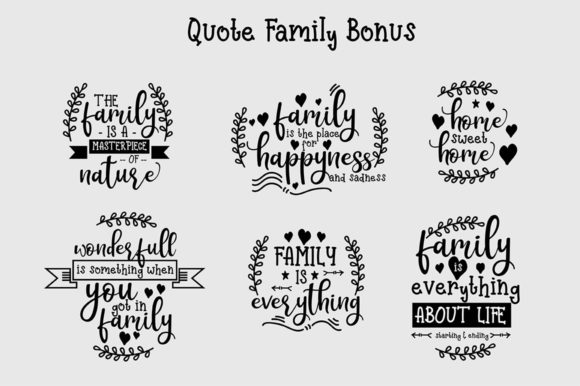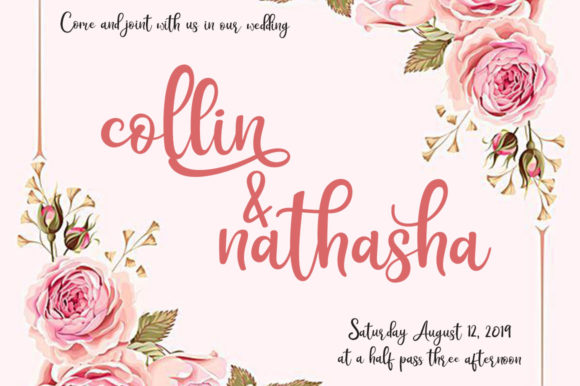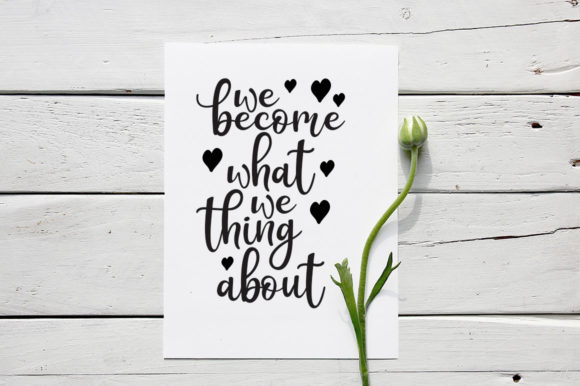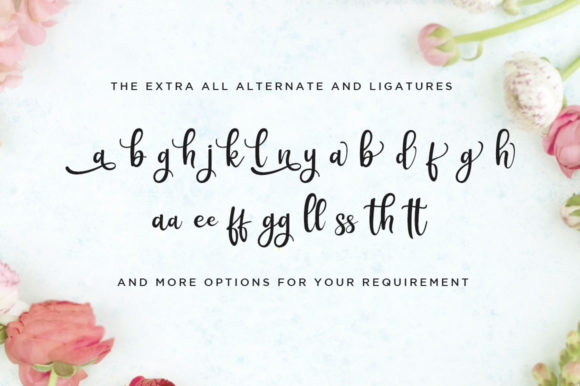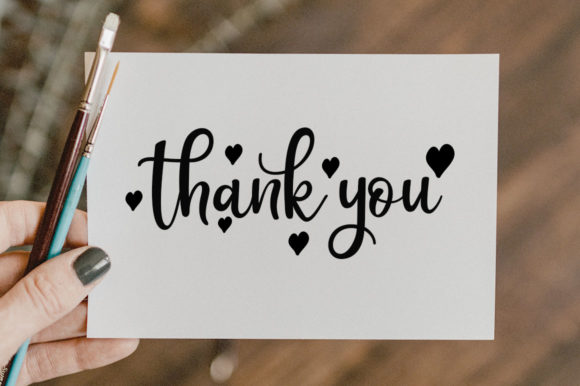
Rothena Font
About Rothena Font
Rothena is a carefully crafted handwritten font with a unique personal charm. It will turn any design idea into a stand out!